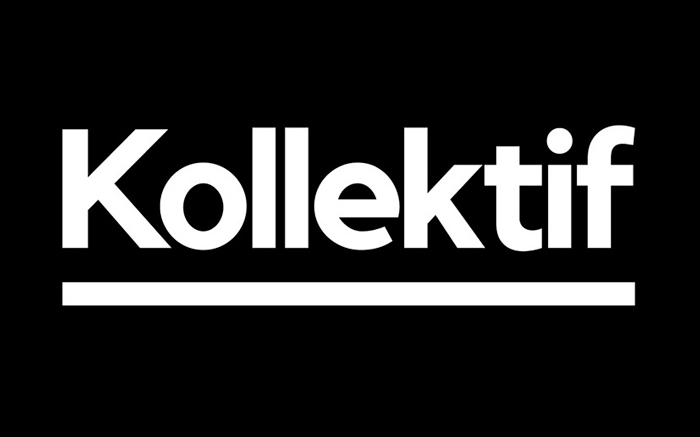
Kollektif Typeface
Kollektif is a modern geometric typeface modified with the aim to satisfy the need for the new typefaces for the year 2000 with low contrast but clear shapes. Safe for application in printed media and web, Kollektif comes with two styling and two gradient levels of thickness.
Kollektif Sans Serif Typeface